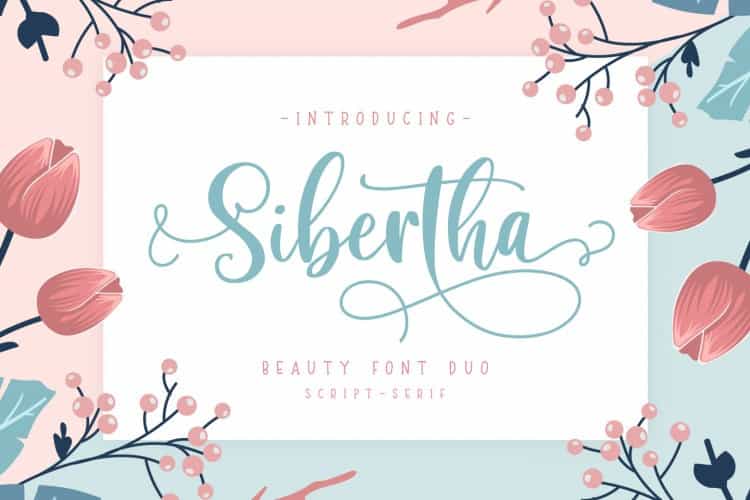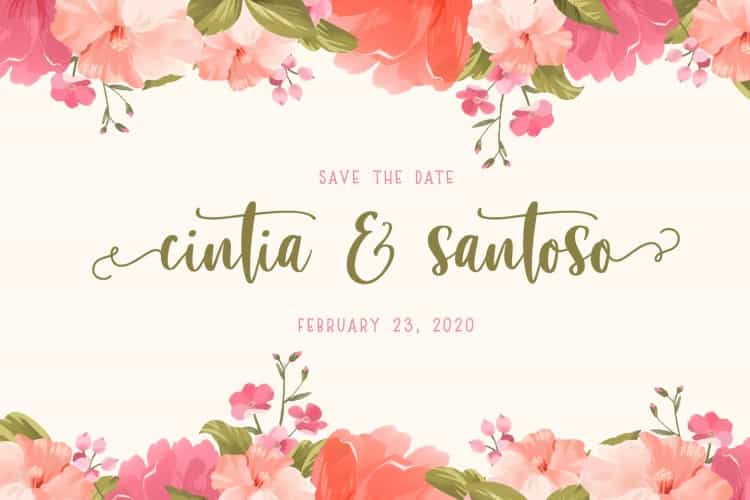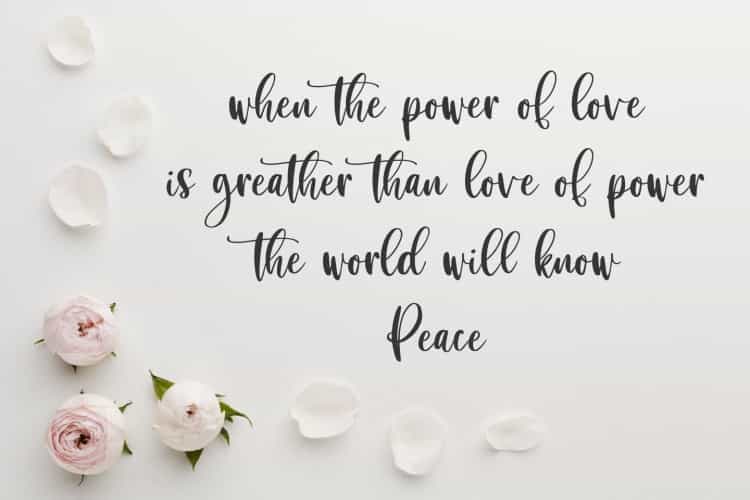
Sibertha is a stunning font duo that exudes warmth. It is a combination of the funny script and the elegant serif font that will raise any crafting project to the best level. The fall in love with this ideal pair will be the end of everything!